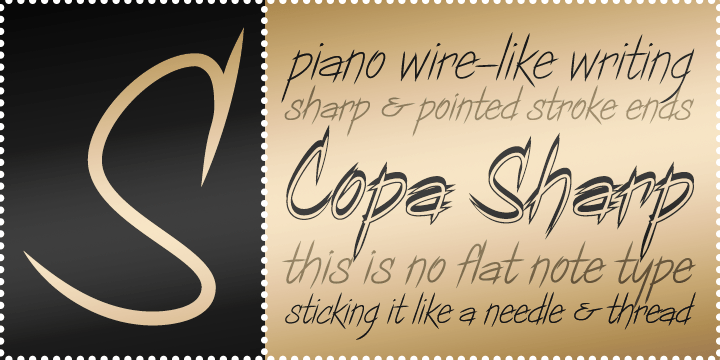
Copa Sharp BTN
Copa Sharp BTN is a lively display family with crisp pointed terminals and a fast, stylish sense of motion. Its sharp detailing gives the design a dynamic personality, while its clean overall structure keeps it bold and highly usable for attention-grabbing typography. Copa Sharp BTN works well for posters, branding, packaging, signage, sports-inspired graphics, event materials, and editorial headlines that need a spirited, high-impact look. With Light, Regular, Bold, and Shadow styles, the family offers flexible ways to create energetic display work with extra visual punch.